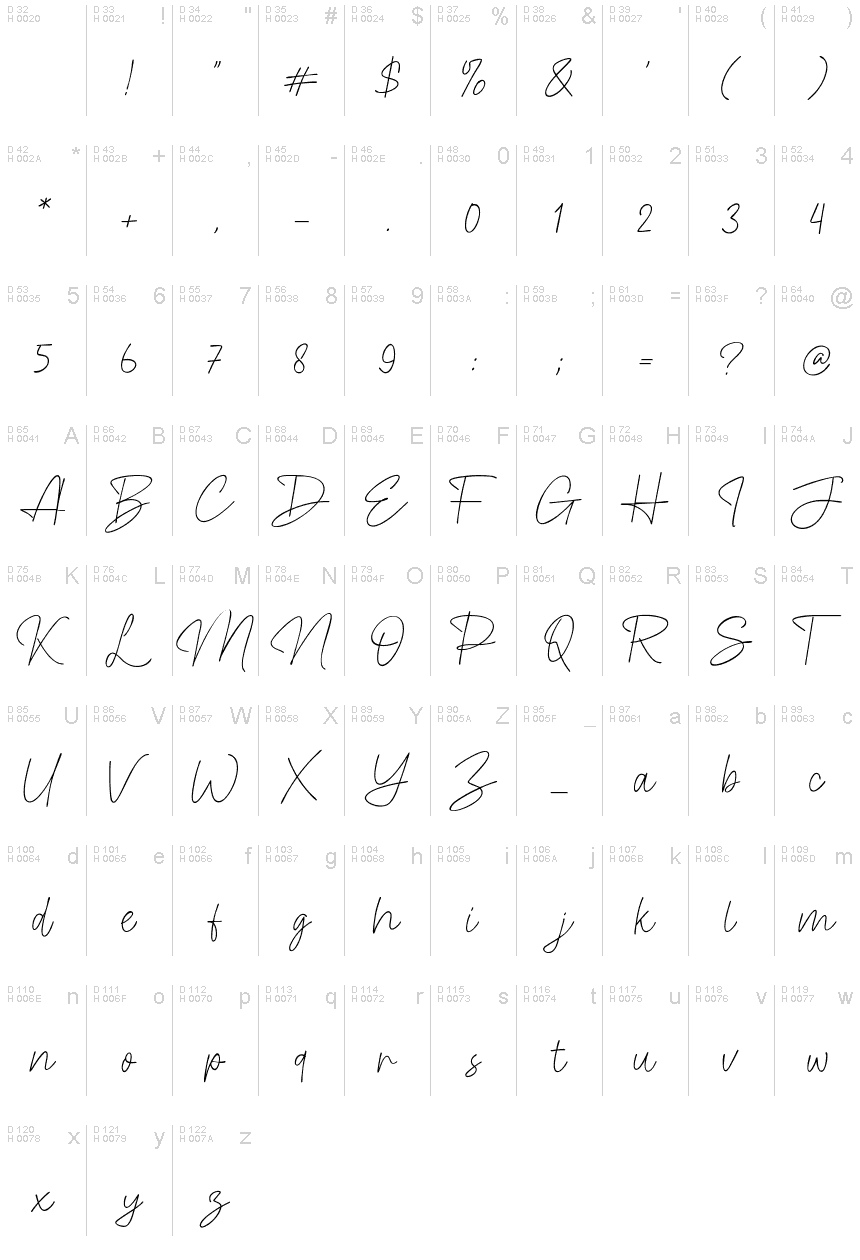
Travel Ballad
Travel Ballad, the exquisite handwritten font designed by Khurasan, is the perfect choice for projects that require a touch of whimsy and elegance. With its extra-light weight, this font is ideal for creating delicate and refined designs that demand attention. Whether you're designing wedding invitations, branding materials, or crafting social media graphics, Travel Ballad's unique style will ensure your message stands out. Its soft curves and flowing lines evoke feelings of romance and adventure, making it an excellent choice for travel-related campaigns. Let Travel Ballad take your design projects to new heights with its playful charm and sophisticated appeal.